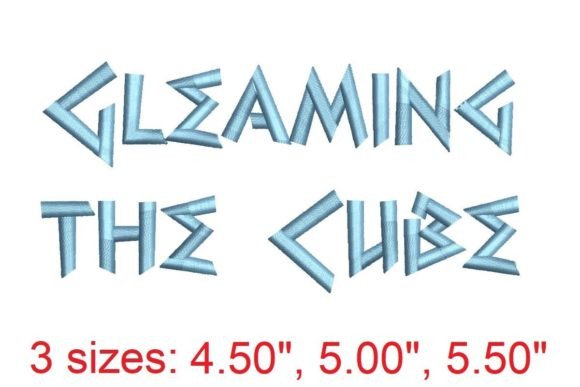
Gleaming the Cube Embroidery Font
As an embroidery designer with years of experience, I’ve seen countless fonts and designs come and go. But when I stumbled upon the Gleaming the Cube Embroidery Font, it immediately caught my attention. This isn’t just another font—it’s a design that brings a unique visual personality to any project. Whether you're working on a small shop product or a custom apparel line, this font has the potential to elevate your work in ways that feel both fresh and professional.
The Visual Personality of Gleaming the Cube
From the first glance, Gleaming the Cube Embroidery Font exudes a modern, clean aesthetic. Its geometric structure gives it a bold yet minimalist feel, making it ideal for contemporary fashion trends. The font doesn’t scream for attention but commands respect through its precision and clarity. It feels premium, almost like a high-end logo, which makes it perfect for boutique brands looking to establish a strong identity.
The stitching mood is crisp and intentional. Each letter is designed with enough detail to stand out without becoming overwhelming. This balance makes it versatile for different applications—whether you're using it for a small chest placement on a t-shirt or a large back design on a hoodie.
Performance Across Apparel Projects
One of the standout features of Gleaming the Cube Embroidery Font is how well it performs across various garment types. For sweatshirt embroidery, the font holds up beautifully, especially on neutral or pastel backgrounds where it can pop without clashing. On dark garments, the contrast is sharp and visually striking, making it a great choice for seasonal outfits or holiday-themed pieces.
For hoodie design, the font works well on both chest and sleeve placements. Its clean lines prevent it from looking too busy, even when placed next to other embellishments. When used as a back design, it adds a sense of sophistication that can make a basic sweatshirt feel like a statement piece.
On t-shirt embroidery, the font maintains its integrity without appearing too large or too small. It’s also adaptable for tote bag design, where its structured look pairs well with the casual nature of the item. For boutique merchandise, this font offers a level of polish that can help differentiate your brand from competitors.
Where to Use the Design Carefully
While Gleaming the Cube Embroidery Font is highly versatile, there are some areas where caution is advised. For small chest placement, the font may appear too bold if not scaled correctly. It’s important to test the size before finalizing the design to ensure it fits proportionally.
In dense stitch areas, the font’s details can become slightly muddled. To avoid this, consider adjusting the stitch density or using a stabilizer that supports intricate designs. When working with stretchy fabric or fleece, make sure the hoop size is appropriate and that the stabilizer is sufficient to prevent puckering or distortion.
For curved surfaces or tiny lettering, the font may require some adjustments to maintain its shape and clarity. Always test on similar fabric before committing to a large production run.
Impact on Apparel Value and Brand Identity
Gleaming the Cube Embroidery Font has the potential to significantly impact the perceived value of your products. A well-executed embroidery design can transform a basic garment into a high-quality, handcrafted item that appeals to discerning customers. This is especially important for handmade product sellers and Etsy sellers who rely on visual appeal and consistency to attract buyers.
From a branding perspective, this font offers a clean, professional look that can help reinforce your brand’s image. Whether you’re creating custom apparel for a small shop or designing commercial embroidery for a larger audience, the font’s consistency ensures that your brand remains recognizable across different platforms.
It also plays a role in customer engagement. A well-designed embroidered piece can create a lasting impression, encouraging repeat purchases and word-of-mouth referrals. This is particularly valuable for small clothing brands and creative entrepreneurs who are building their presence in the market.
Practical Designer Notes
Before jumping into production, here are a few practical tips for working with Gleaming the Cube Embroidery Font:
By taking these steps, you can ensure that your use of Gleaming the Cube Embroidery Font is both efficient and effective. Whether you’re creating a printable mockup for an Etsy listing or preparing a social media graphic, this font offers a level of professionalism that can enhance your entire workflow.